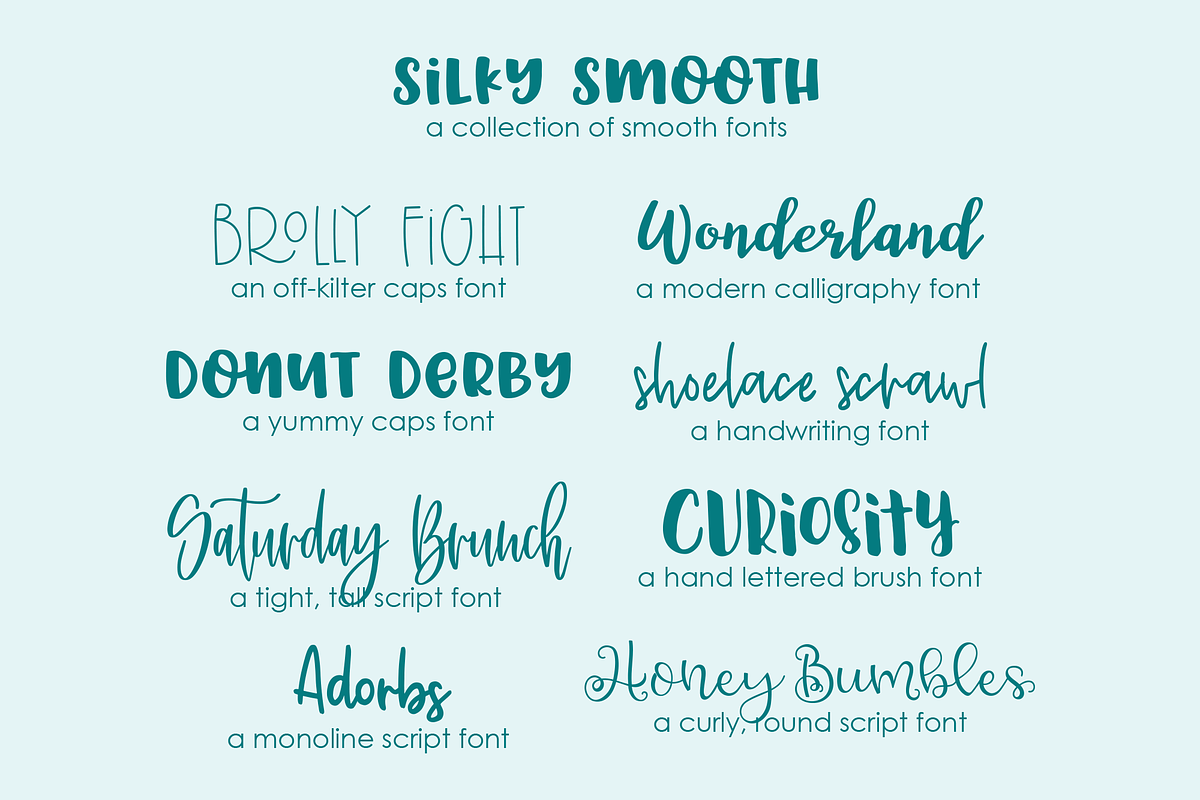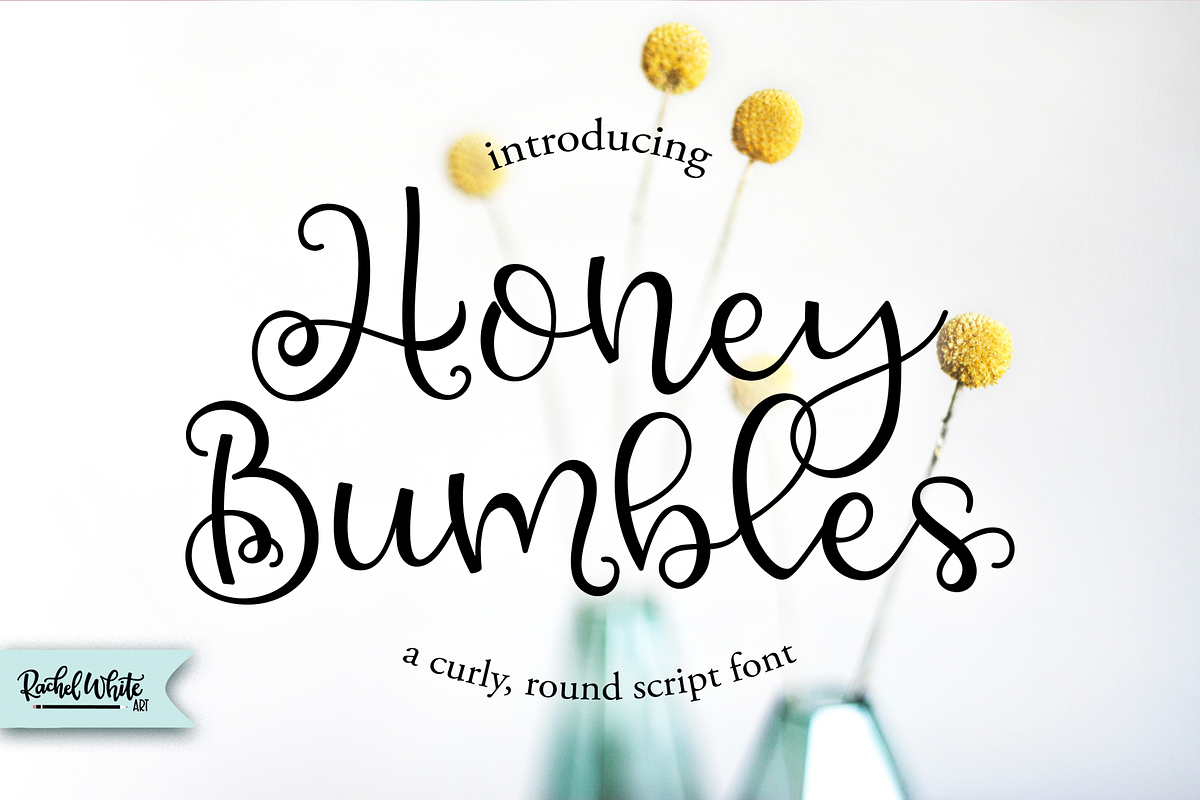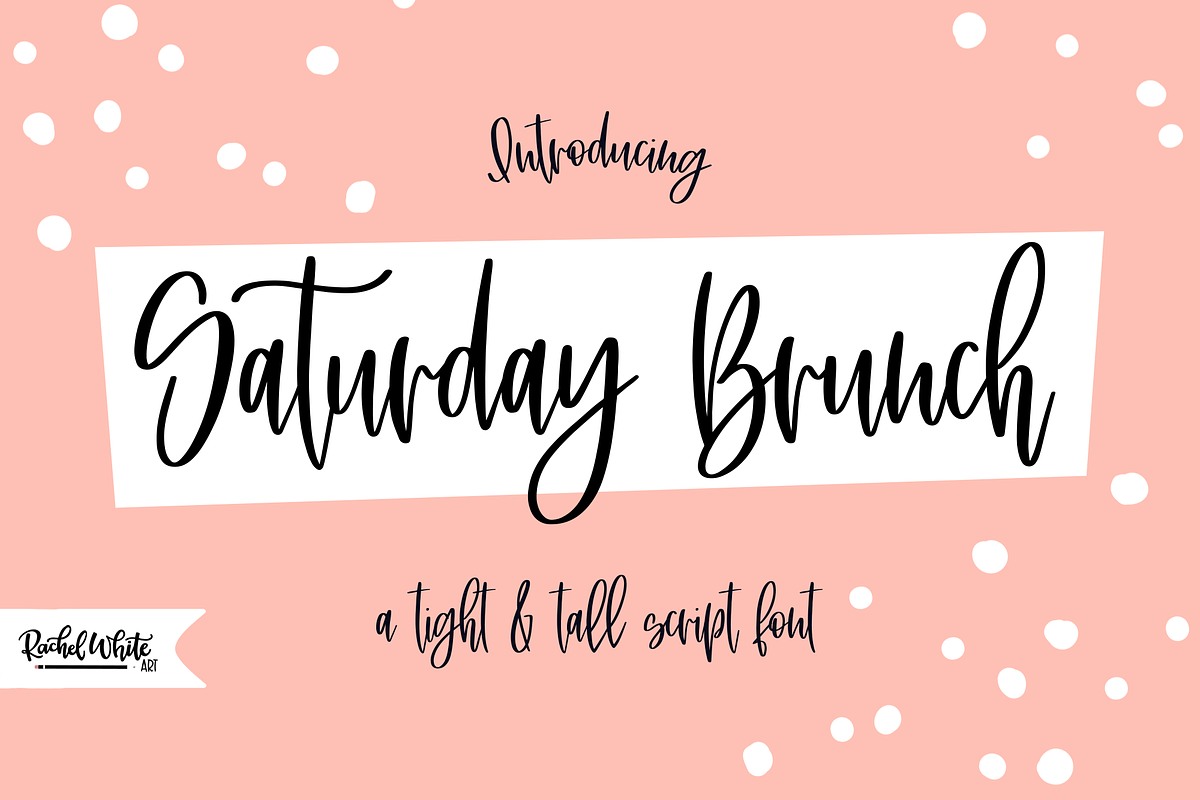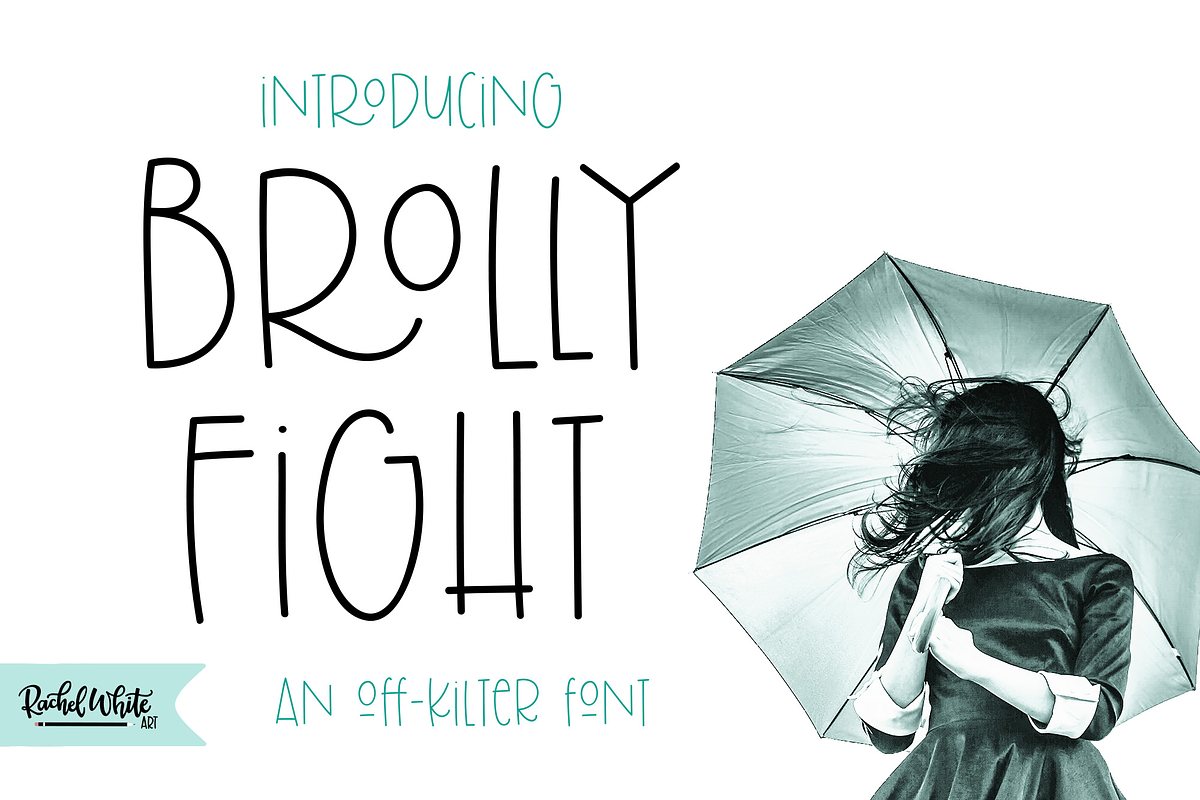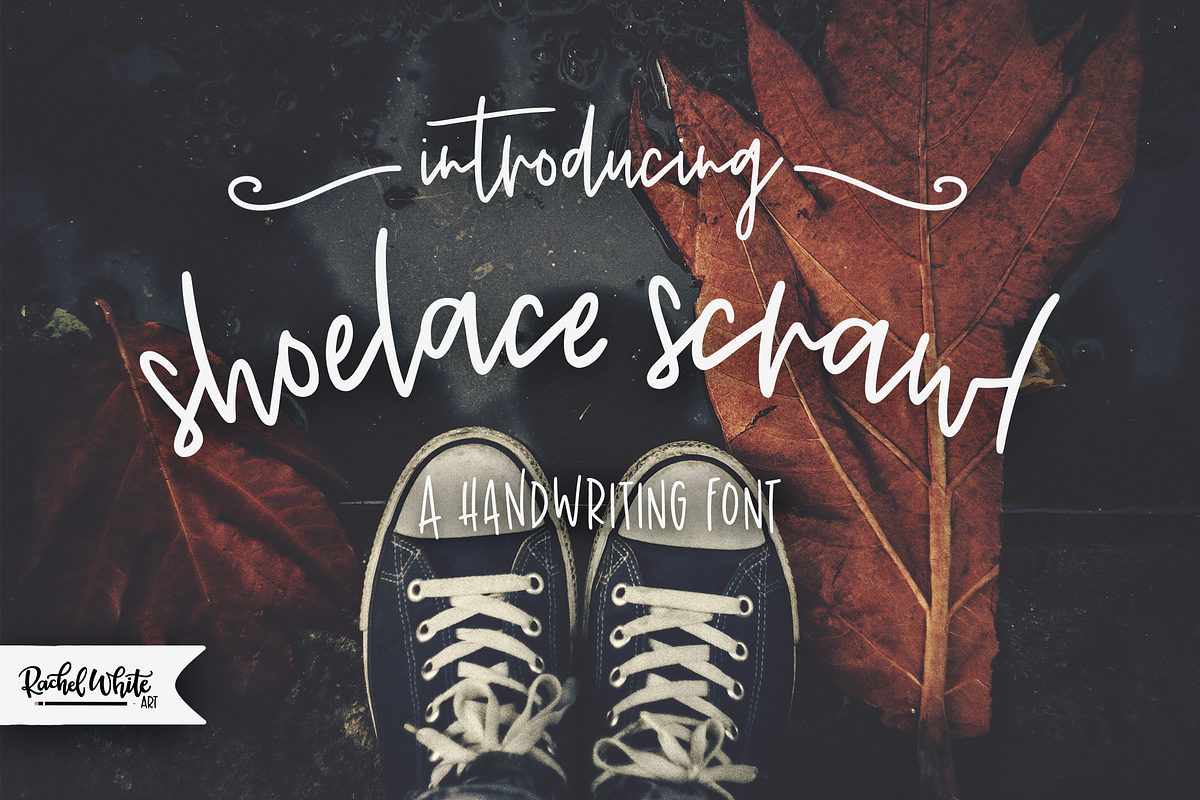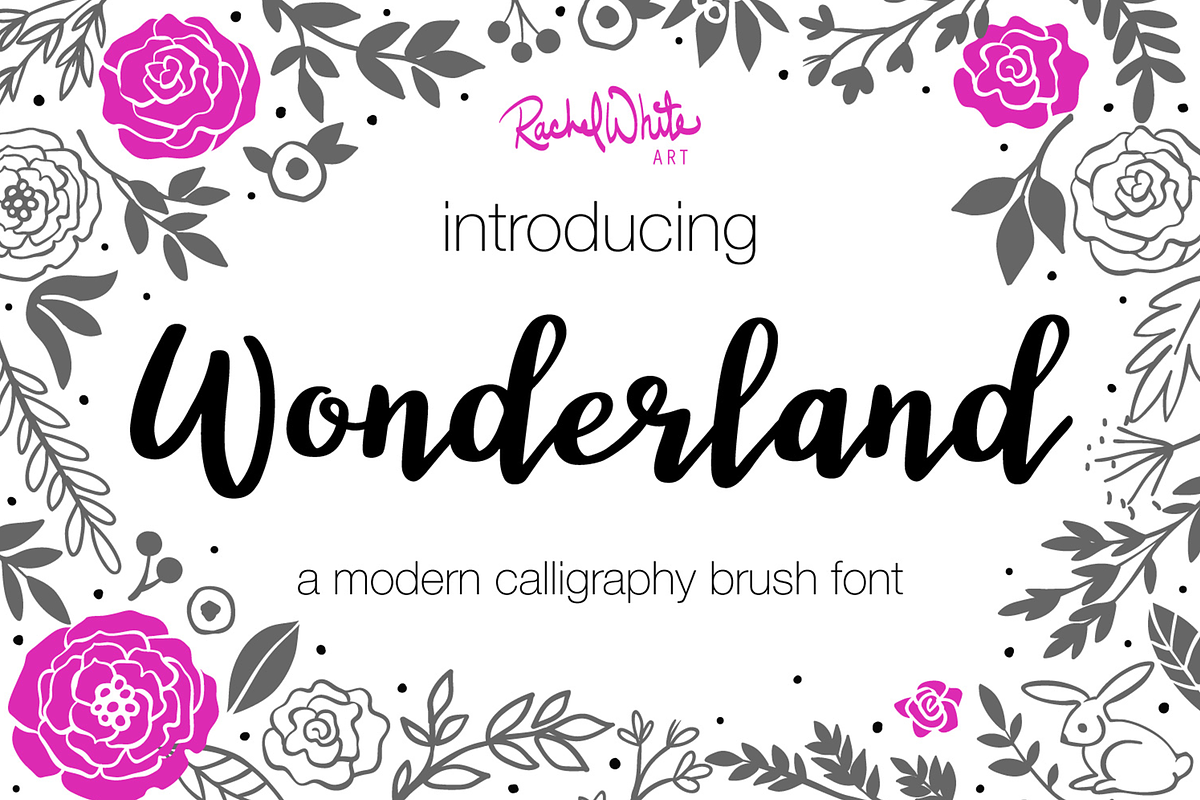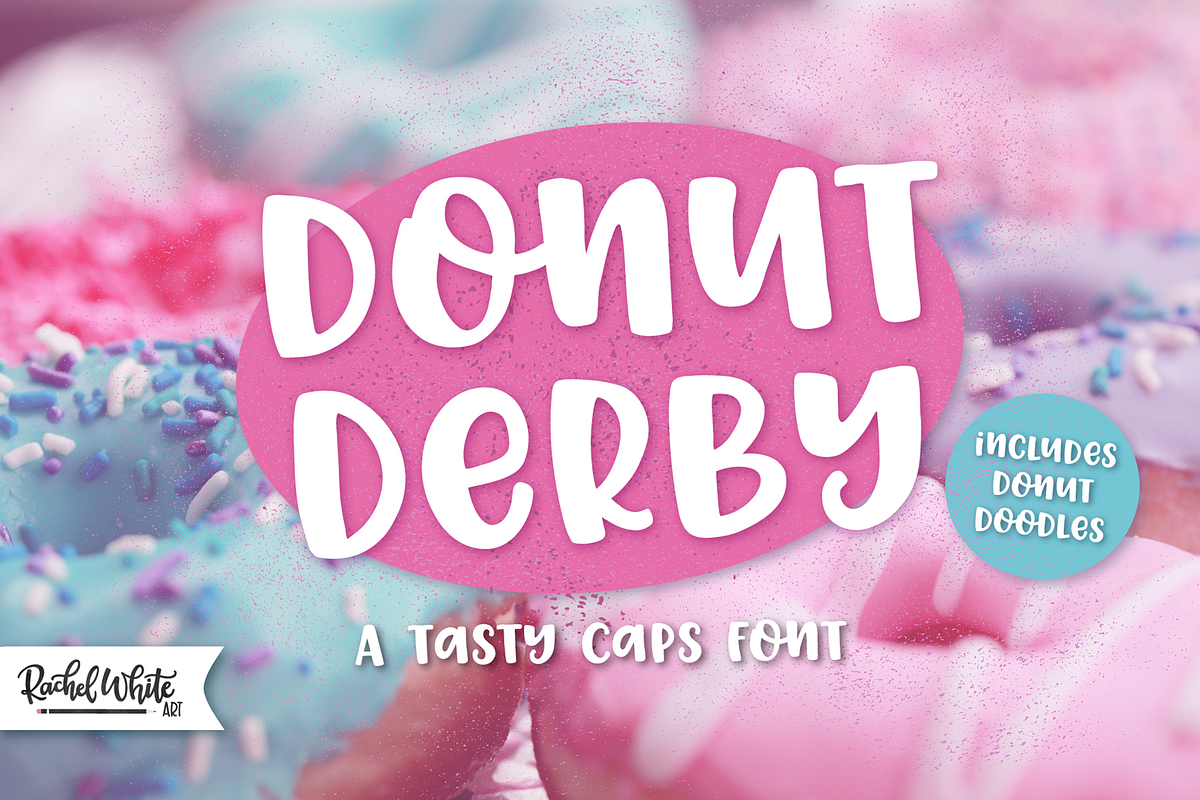
Silky Smooth Font Bundle
My Silky Smooth Font Bundle includes 8 of my smooth edged fonts at a great low price! Check it out!
This bundle includes:
Donut Derby (plus donut illustrations and swirls)
Brolly Fight (Regular and Bold)
Honey Bumbles (plus flourishes)
Shoelace Scrawl (plus doodles)
Curiosity (plus doodles)
Adorbs (plus doodles)